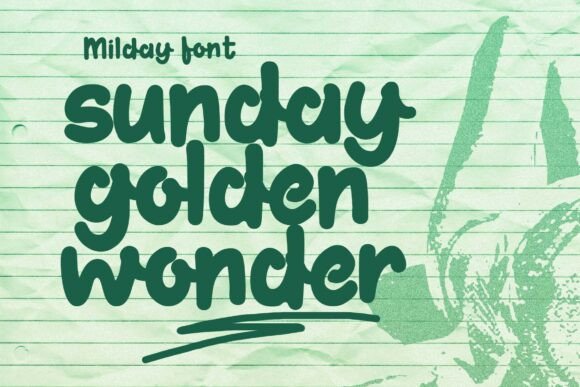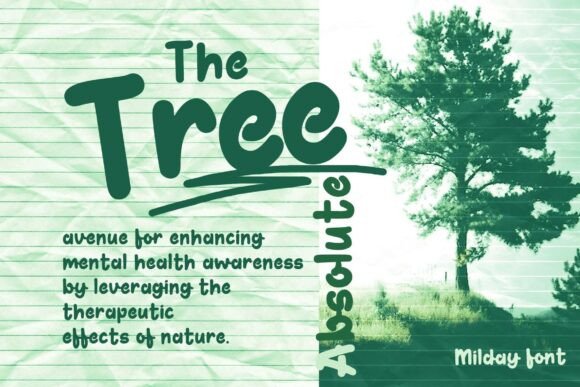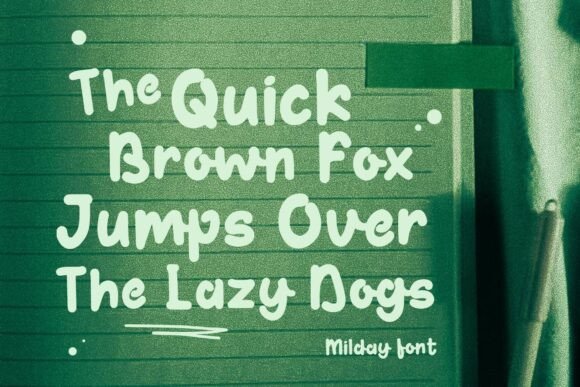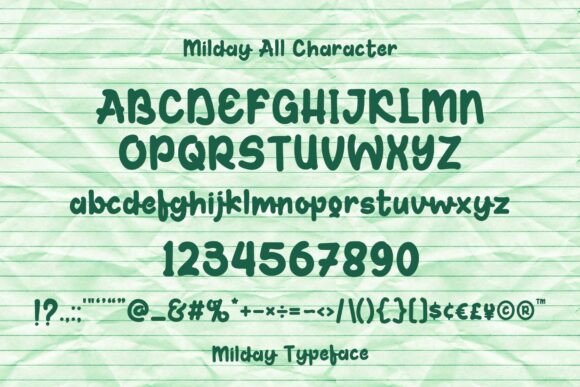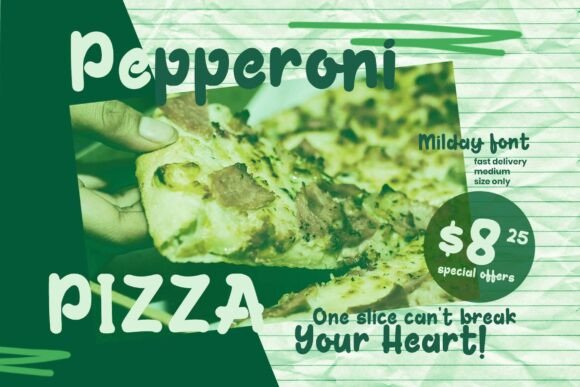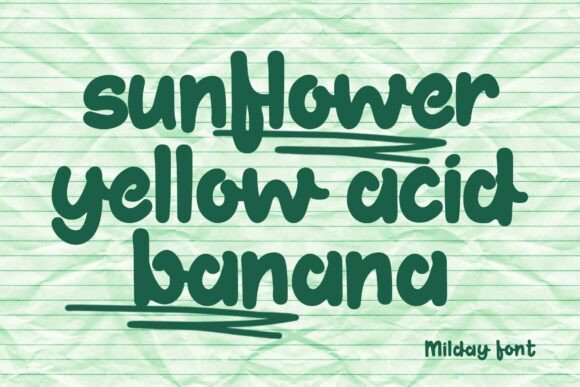
Introduction to Milday Font
Milday is a sweet and friendly handwritten font.
It is perfect for use on crafts, websites, logos and so much more .
Key Features of Milday Font